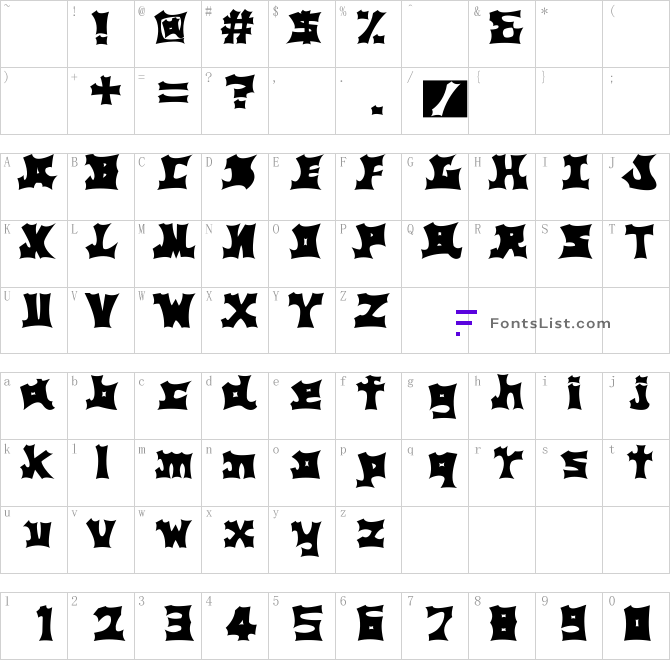
- Font Name:AsianWallpainting
- Copyright:Designed by Jacqueline Hsue
AsianWallpainting.ttf is a very beautiful artistic font, AsianWallpainting.ttf is widely used in the design and printing of various books and pictures,AsianWallpainting.ttf has a strong visual impact,AsianWallpainting.ttf is a commonly used font in newspapers, magazines and books, and is used in posters, e-commerce Poster design, store design, logo design, font design and other fields.AsianWallpainting.